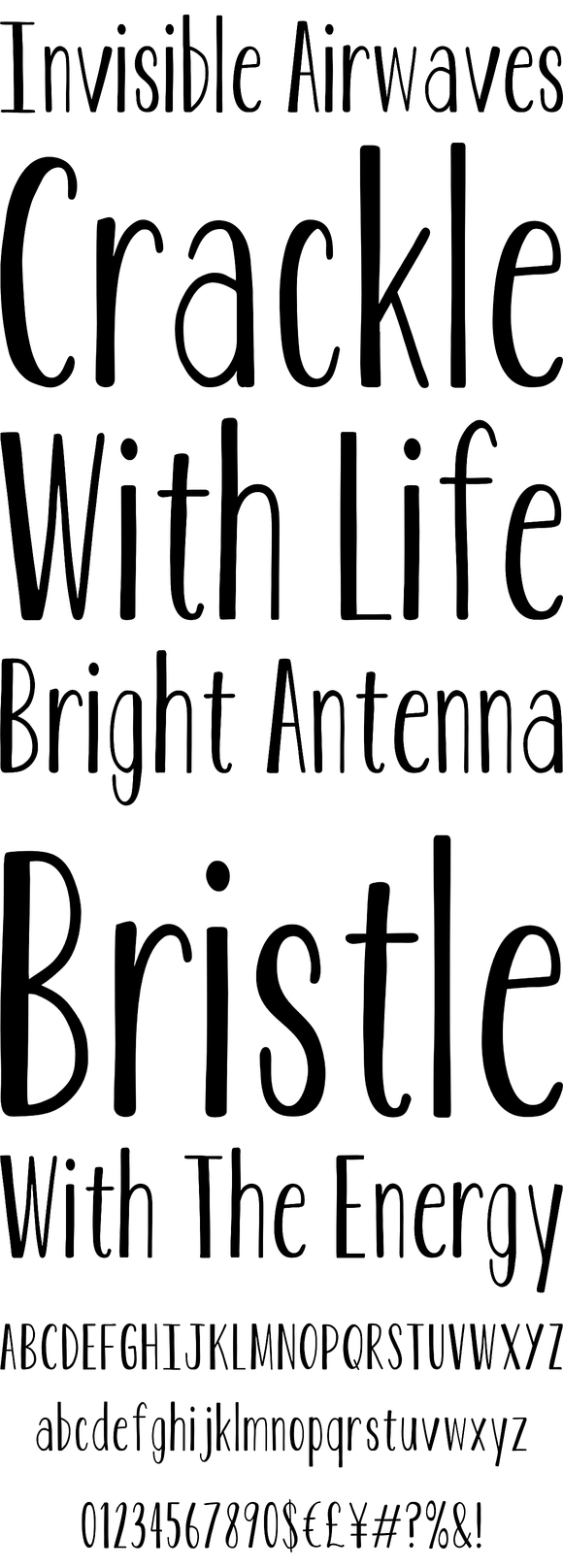
Luella is an elegant, hand drawn vintage inspired font by Cultivated Mind. Luella has been carefully crafted and comes in 3 weights (Regular/Bold/Black). This font works perfectly with the Luella frames and ornaments sets. If you are looking for a vintage style font with a modern twist then Luella is the ultimate font family for you.